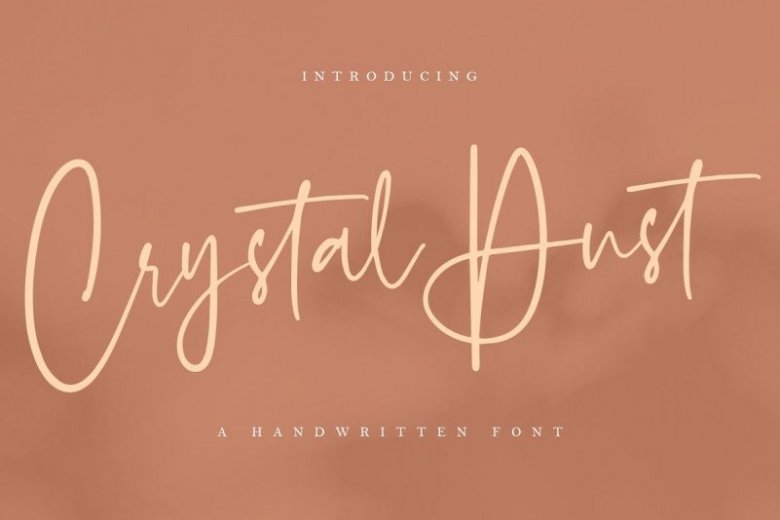
Crystal Dust Handwritten Font
Introducing Crystal Dust Handwritten Font. This is a chic handwritten font. imperfect style ups and downs, like a dance letters, smooth, clean and simple. It is was designed by Megi Satyo Widodo. A Handwritten with a modern script style.
This font is made with a brush pen to produce perfect handwriting. Crystal Dust can be used for various projects such as stationery invitations, social media, logos, weddings, branding, graphic design to support the project you want to work on.